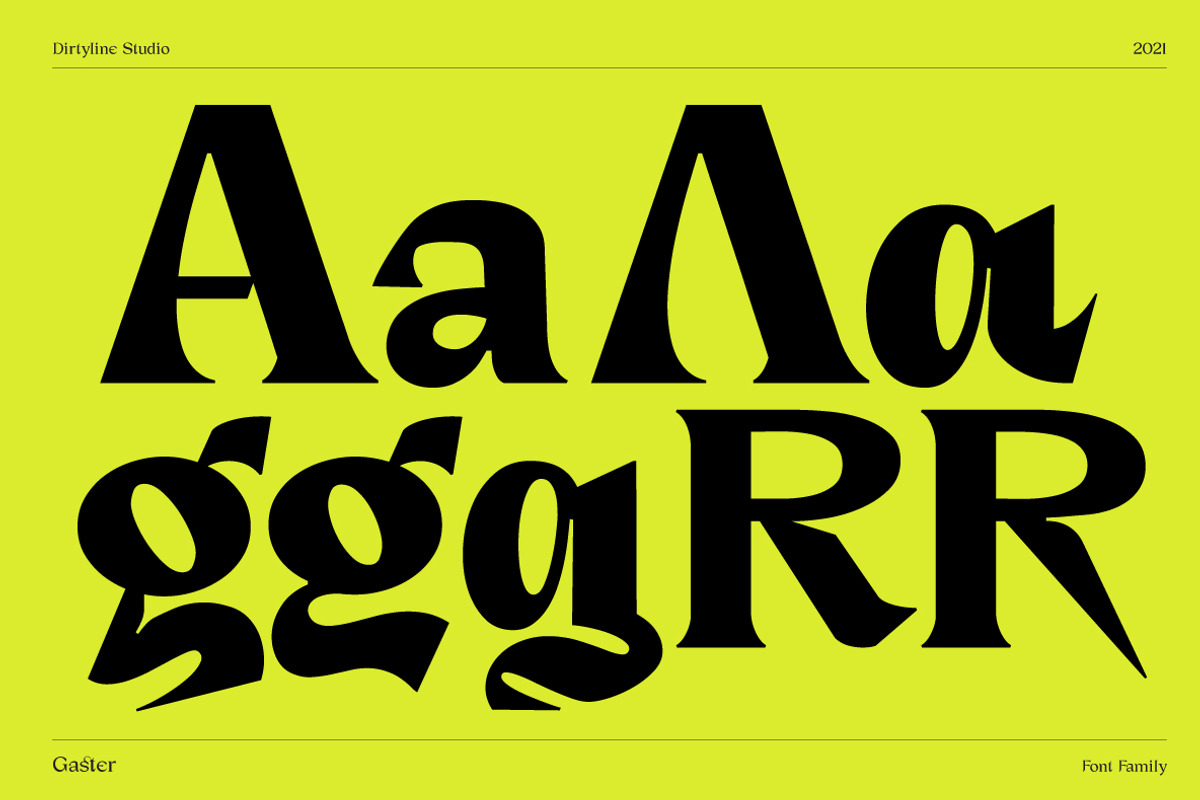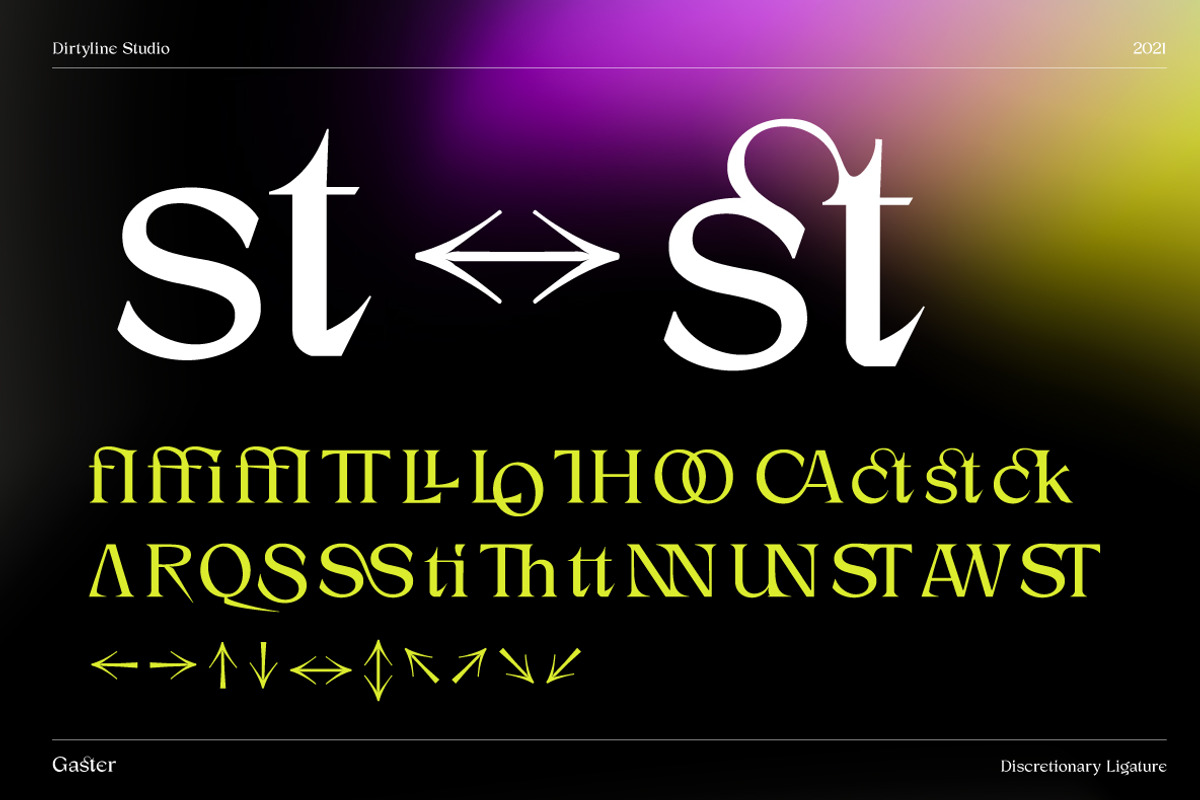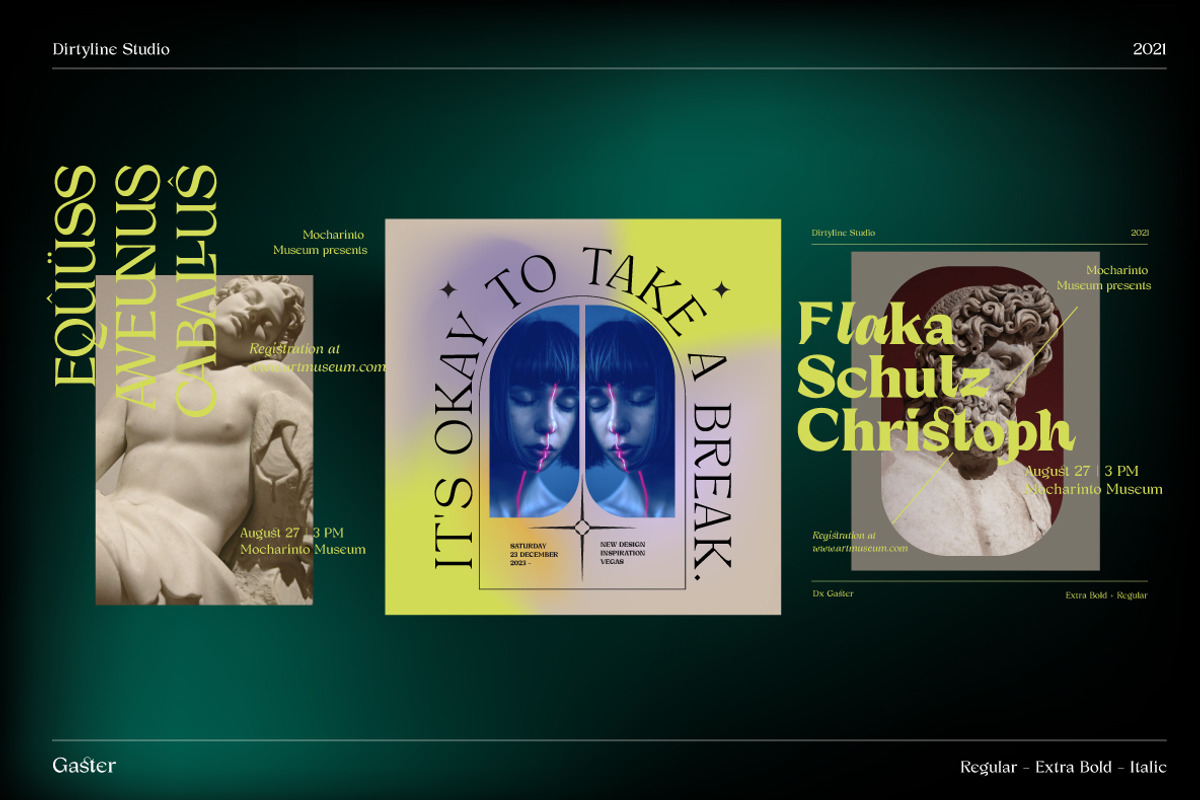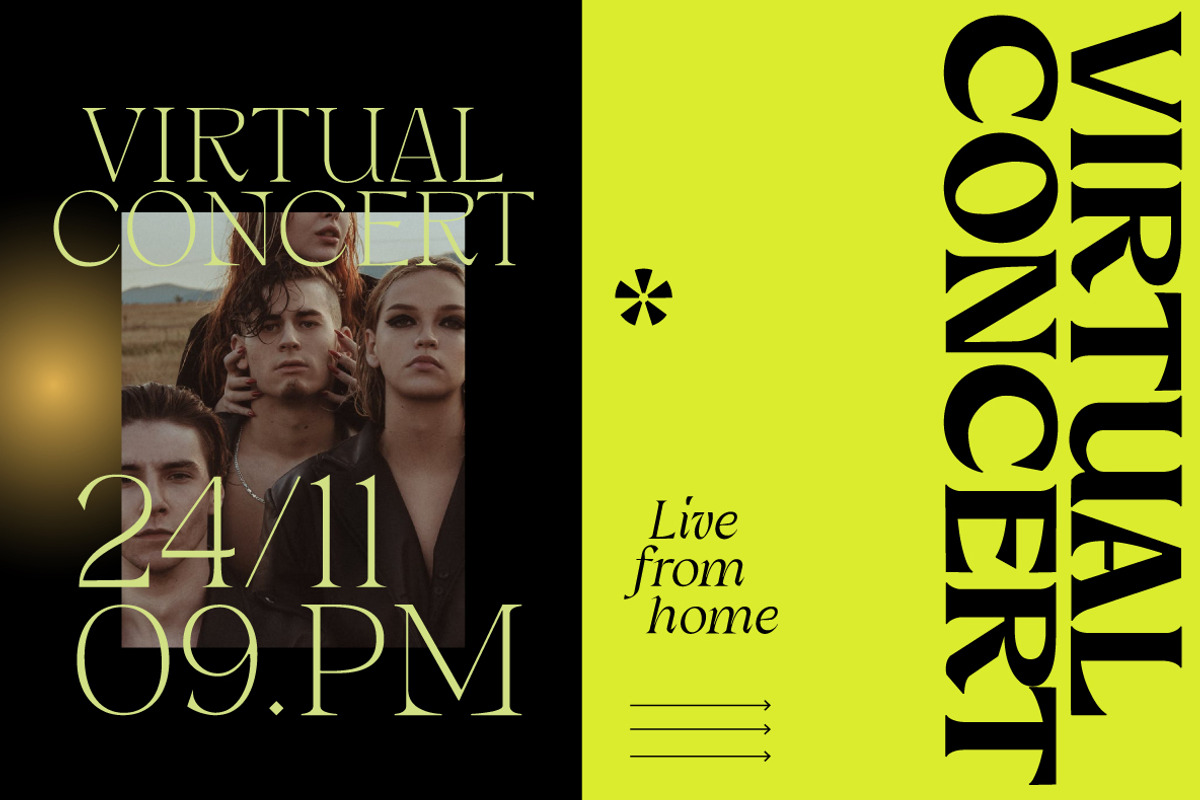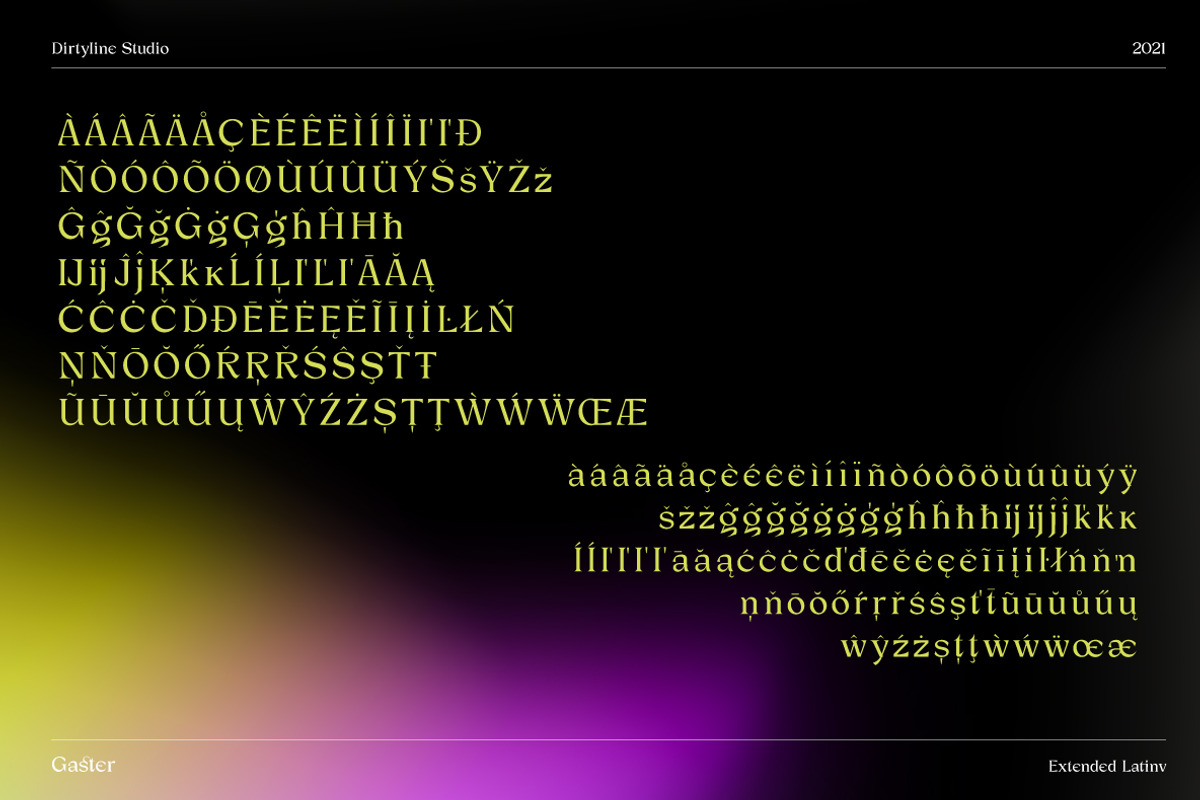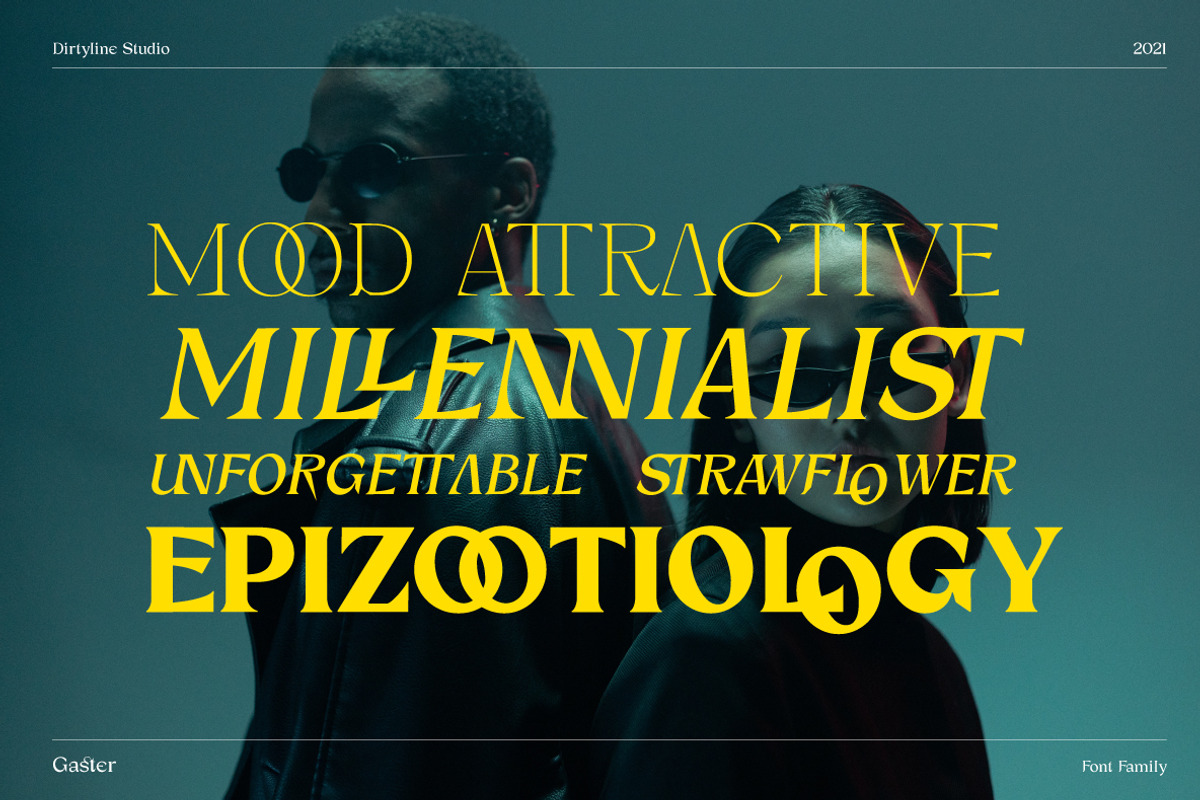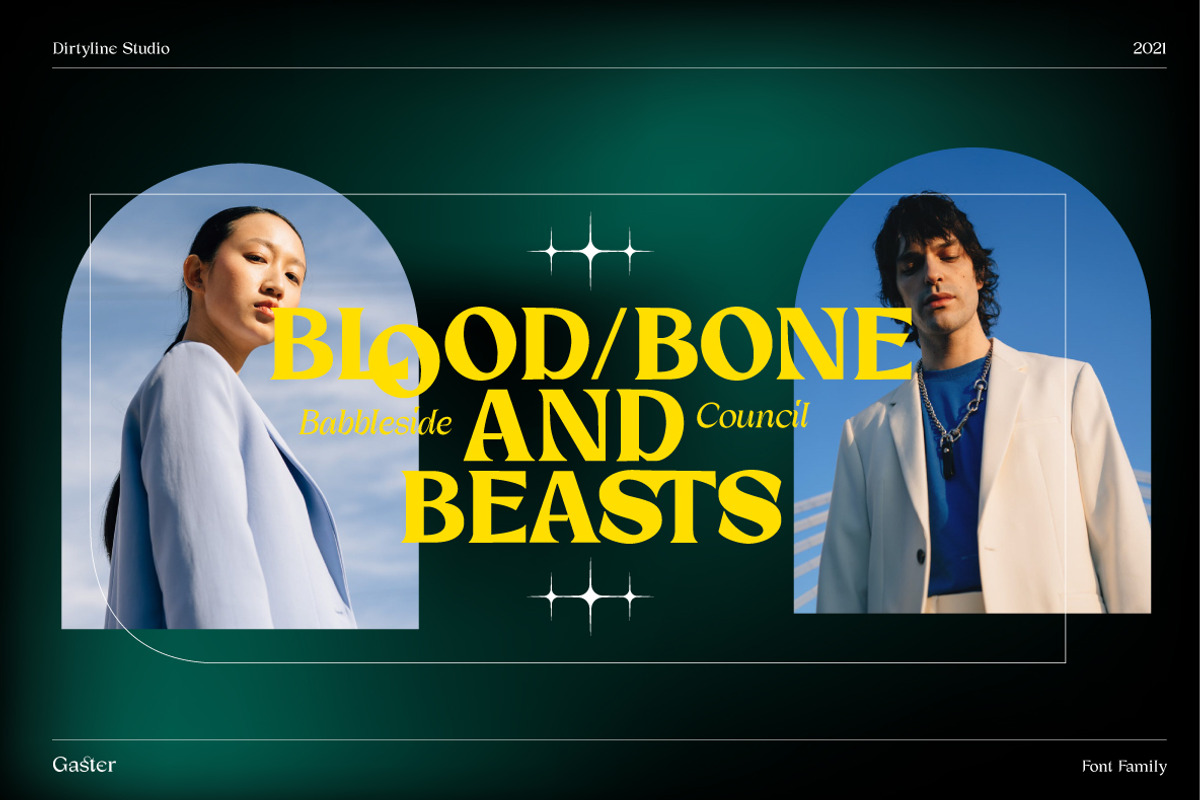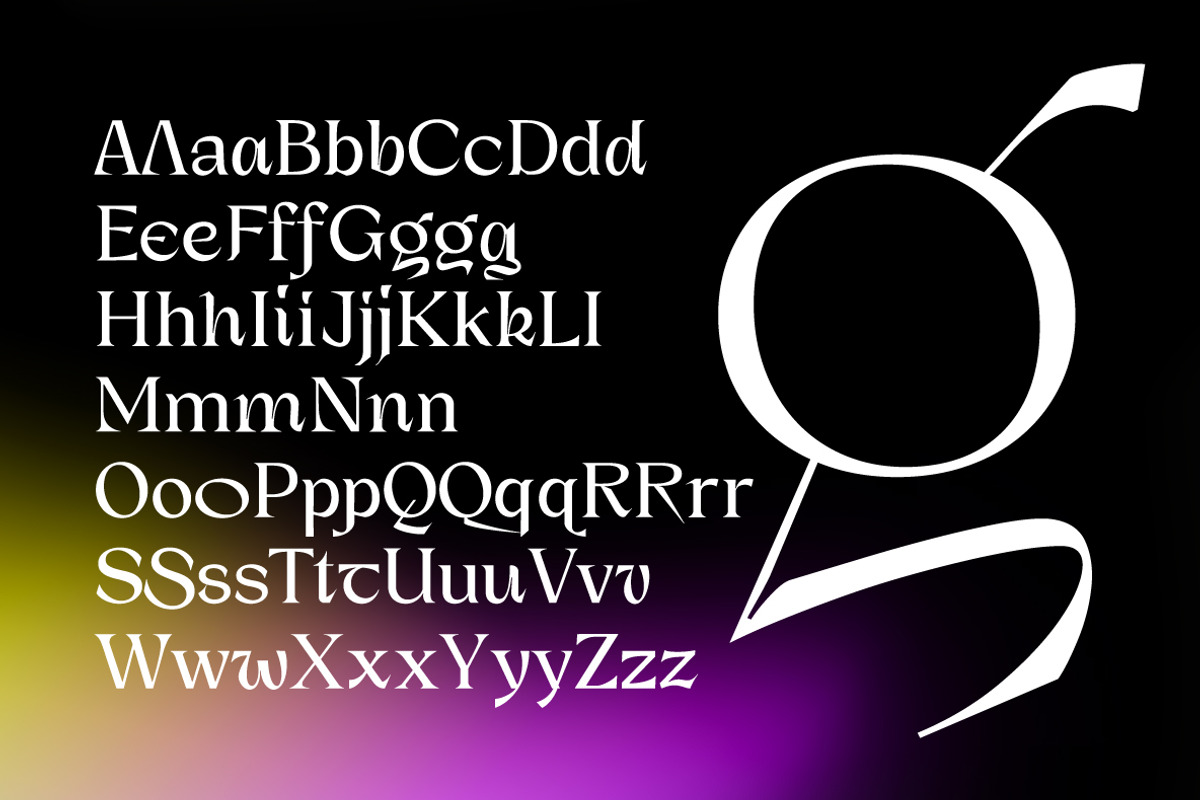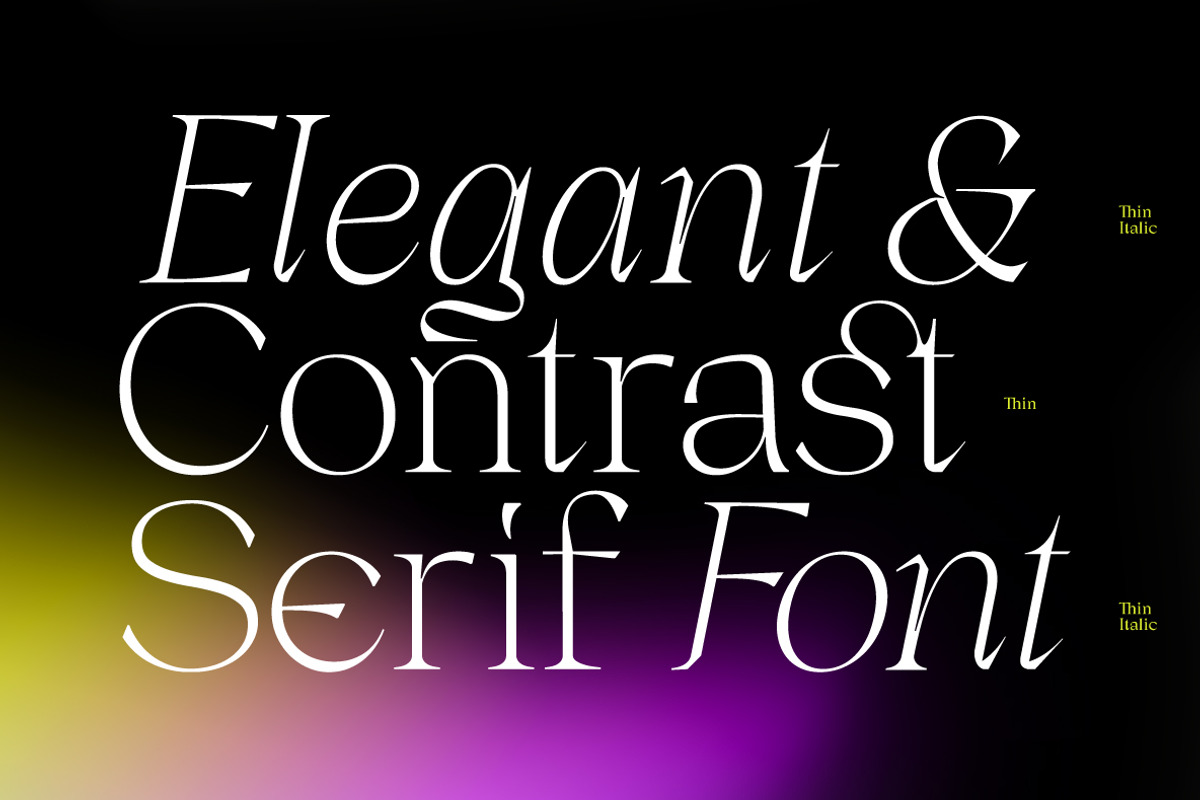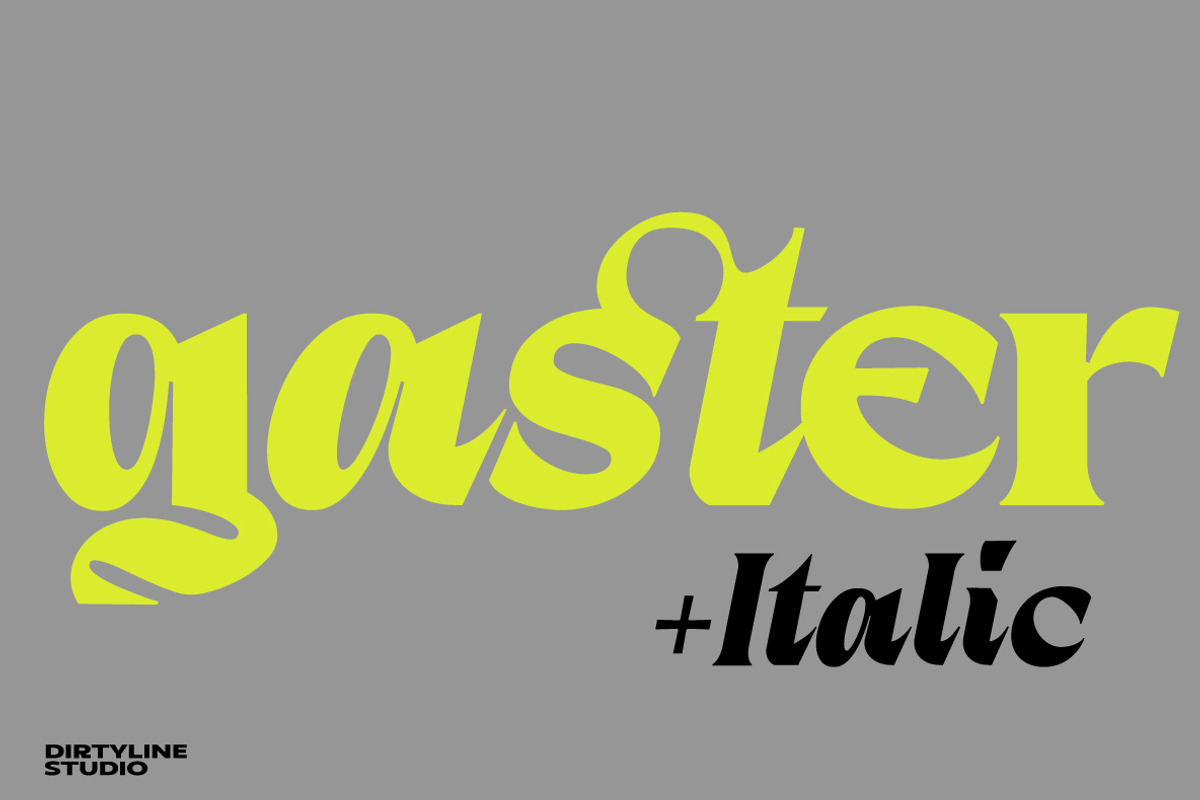
Dx Gaster + Italic
Dx Gaster is a high-contrast Serif family with a strong impact and elegant typeface. Dx Gaster offers a wide variety of combinations for you to create with. Dx Gasters multiple alternates and swashes can add extra spice to your designs. A Strong sharp typeface specially designed for beautiful titles.
Dx Gaster comes with elegant style, strength, and contrasts, with features an extended Latin character set of 404 glyphs covering over 86 languages. Dx Gaster is ready to be like a top model on the design catwalk, making your projects look classic but contemporary, finely tuned but assertive, and elegant as the best luxury fashion.